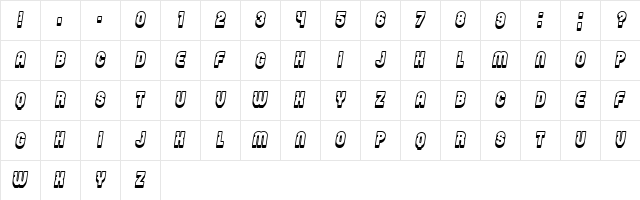
Password Italic Font Preview
Password Italic
Password Italic Font Details
Design Context for Password Typeface
Password is a composed and adaptable typeface that performs quietly and consistently across a wide range of design contexts. Its italic angle brings a sense of urgency and motion to the letterforms.
Pro Tip: Try Password for annotation and caption copy alongside an upright companion — the contrast in angle creates a dynamic but ordered typographic system.